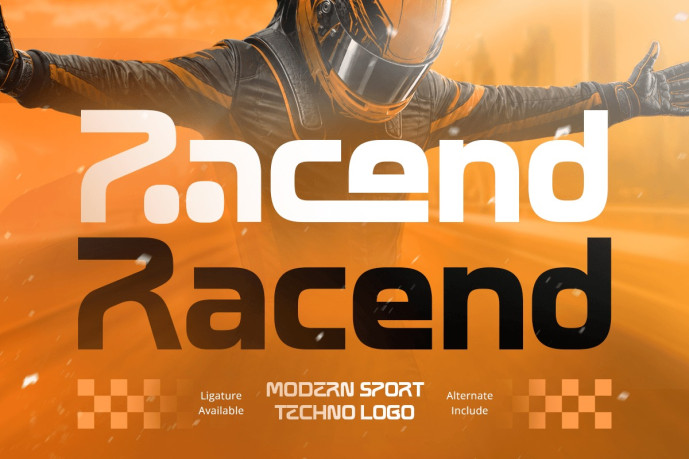
Racend – Modern Sport Techno Font
Racend – Modern Sport Techno Font is a futuristic sport techno font engineered for motorsport branding, automotive graphics, esports identities, gaming visuals, and high-impact logo design. Inspired by high-speed racing, advanced technology, and modern performance culture, Racend delivers bold typography that communicates precision, power, and innovation.
Featuring angular letterforms, futuristic geometric construction, and dynamic techno-inspired details, Racend creates a strong visual identity that captures the energy of speed and competition. Its modern design is optimized for logos, branding systems, display headlines, and promotional graphics, making it an excellent choice for projects that demand a bold and contemporary appearance.
Whether you’re designing a racing logo, creating an automotive brand, developing gaming graphics, or building a technology-focused visual identity, Racend provides the high-performance typography needed to elevate your creative work.
Racend Font Features
Character Set: Uppercase, lowercase, numbers, symbols, and punctuation
Modern sport techno letterforms optimized for logo design and performance branding
OpenType features ready to enhance your design needs
Racend is Perfect For
Motorsport and racing branding
Automotive logo and visual identity design
Esports and gaming branding
Technology startup branding
Sports event promotions and marketing campaigns
Website headers and digital brand assets
Dynamic display typography
High-performance visual identity systems
Whether you’re creating a motorsport logo, building an automotive brand, designing esports graphics, or developing a technology-inspired visual identity, Racend delivers the speed, innovation, and bold character of a modern sport techno font built for today’s competitive brands.